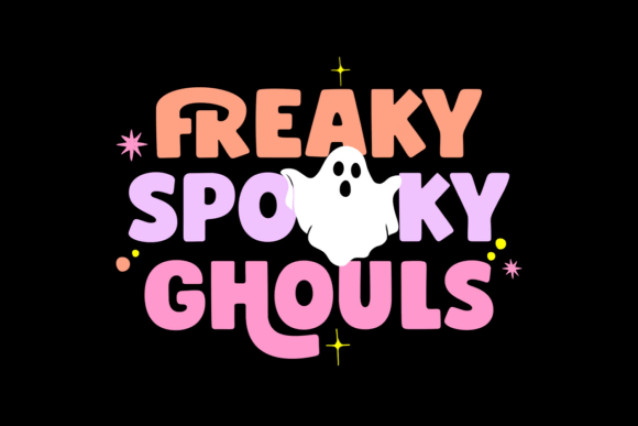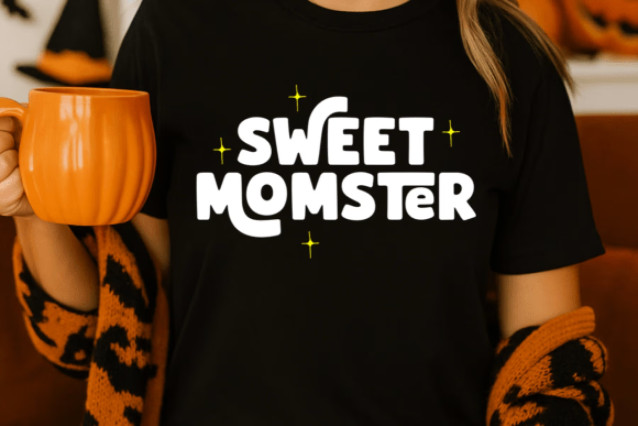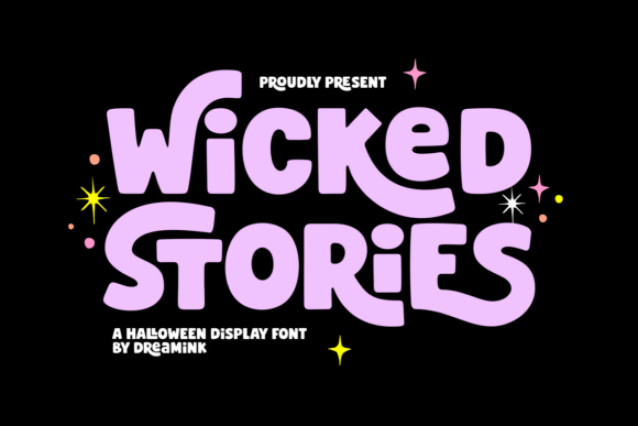
Bring a little spooky fun to your designs with Wicked Stories, a bold and playful Halloween display font filled with quirky, rounded shapes and a fun hand-crafted personality. Its chunky letterforms and whimsical style create a cheerful spooky vibe without feeling too scary.
Whether you’re creating a cute Halloween collection, a haunted party invitation, or a fun spooky-themed product, Wicked Stories adds a charming and eye-catching personality to every project.